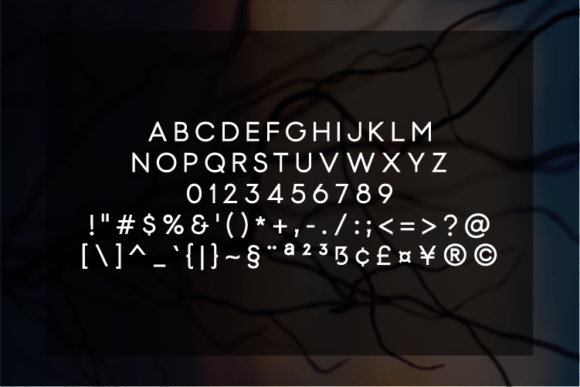
Introducing Gabriely Semi Bold Font: Elevate Your Designs with a Touch of Modern Elegance
In the world of typography, fonts play a crucial role in shaping the visual identity of a project. A well-chosen font can instantly elevate the aesthetic appeal of a design, making it more engaging and memorable. For designers and crafters seeking a clean, modern sans serif typeface, Gabriely Semi Bold Font is an excellent choice. In this article, we’ll delve into the features and benefits of Gabriely, exploring why it’s a great asset to own for any creative project.
What is Gabriely Semi Bold Font?
Gabriely is a meticulously designed sans serif typeface, characterized by its clean lines, modern aesthetic, and exceptional attention to detail. This font has been crafted with passion and dedication, making it an essential addition to any designer’s font library. Gabriely’s simplicity and timelessness ensure that it can be effortlessly paired with a wide range of design styles, from minimalist to sophisticated.
Key Features of Gabriely Semi Bold Font
- Clean and Modern Design: Gabriely boasts a sleek, contemporary design that instantly adds a touch of elegance to any project.
- Attention to Detail: The font’s creator has paid meticulous attention to every detail, ensuring that Gabriely is not only visually appealing but also highly legible.
- Sans Serif Typeface: Gabriely’s sans serif design makes it versatile and suitable for a wide range of applications, from digital media to print materials.
- Timeless Look: The font’s classic simplicity ensures that it won’t go out of style, making it a valuable asset for designers seeking a long-term solution.
Benefits of Using Gabriely Semi Bold Font
So, why should designers and crafters choose Gabriely Semi Bold Font for their projects? Here are just a few benefits:
- Enhance Readability: Gabriely’s clean design and exceptional legibility make it perfect for body text, ensuring that your content is easily readable and digestible.
- Boost Visual Appeal: The font’s modern aesthetic adds a touch of sophistication to any design, making it ideal for headings, titles, and promotional materials.
- Increase Versatility: Gabriely’s sans serif design and timeless look make it suitable for a wide range of applications, from branding and advertising to packaging and web design.
In conclusion, Gabriely Semi Bold Font is an exceptional addition to any designer’s font library. Its clean, modern design, attention to detail, and timeless look make it an essential asset for creating professional-looking designs. Whether you’re working on a branding project, website, or print materials, Gabriely is sure to elevate your designs and leave a lasting impression.